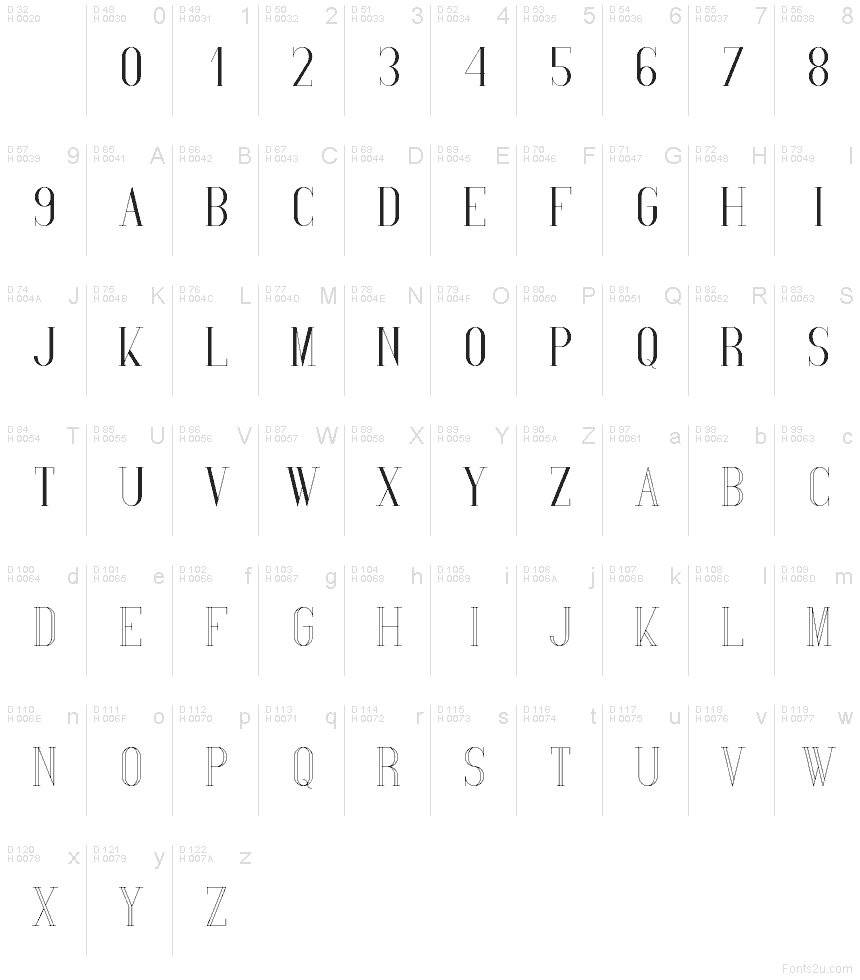
SpringVibe
SpringVibe font is a free serif font from VPcreativeshop which beautifully combines elegance and modernity. With its condensed style, each character showcases minimalist and refined structural elements, capped with an artistic flair. Together the characters create small wonders meant to be shared with a larger audience.
Something splendid always awaits with every design you introduce whether it’s for posters, book covers, brochures, classy magazines, packaging designs for cosmetics or women’s products, branding designs or digital projects.